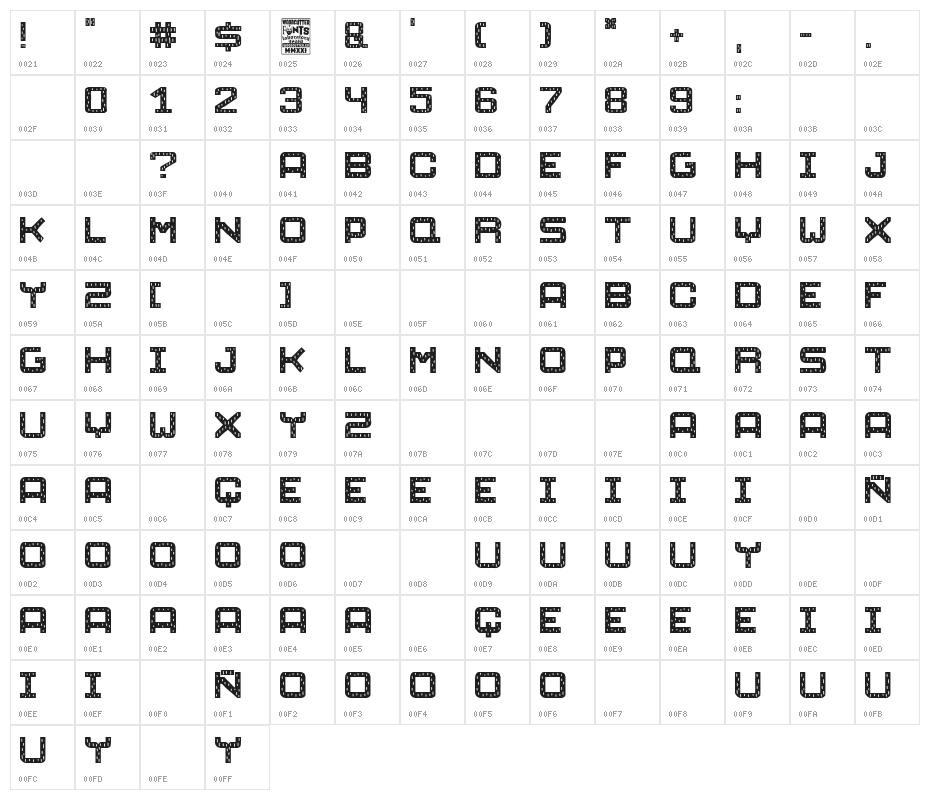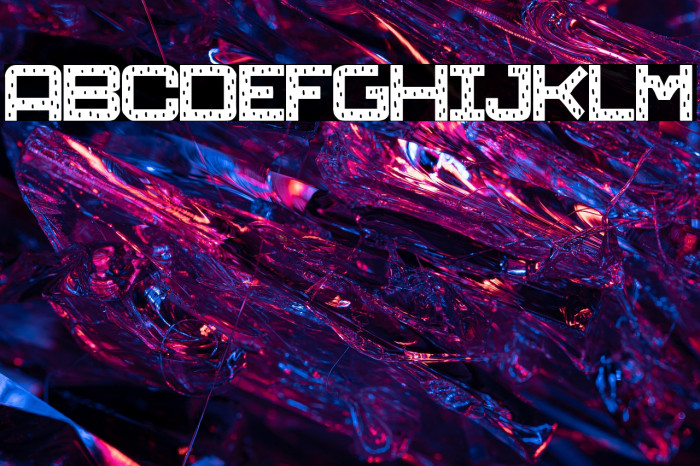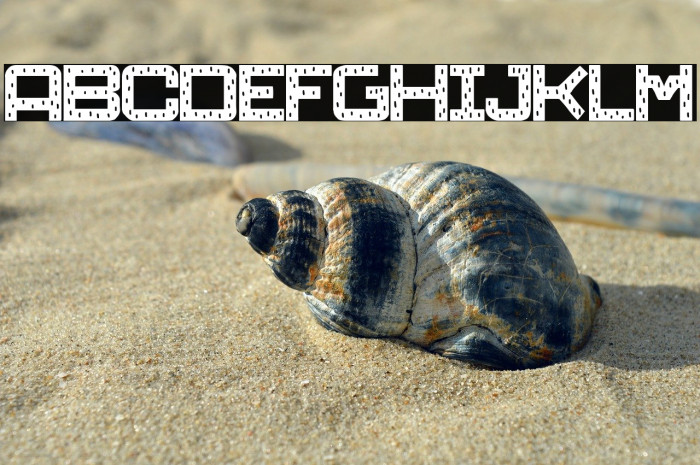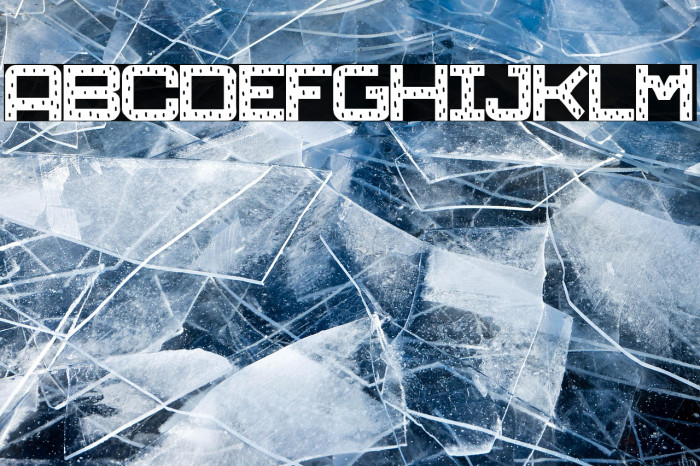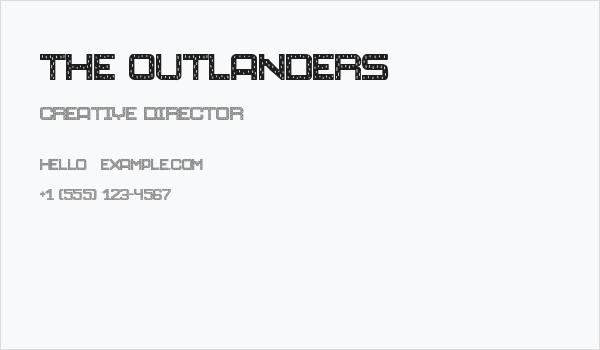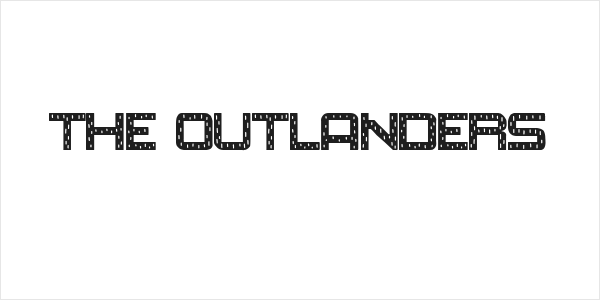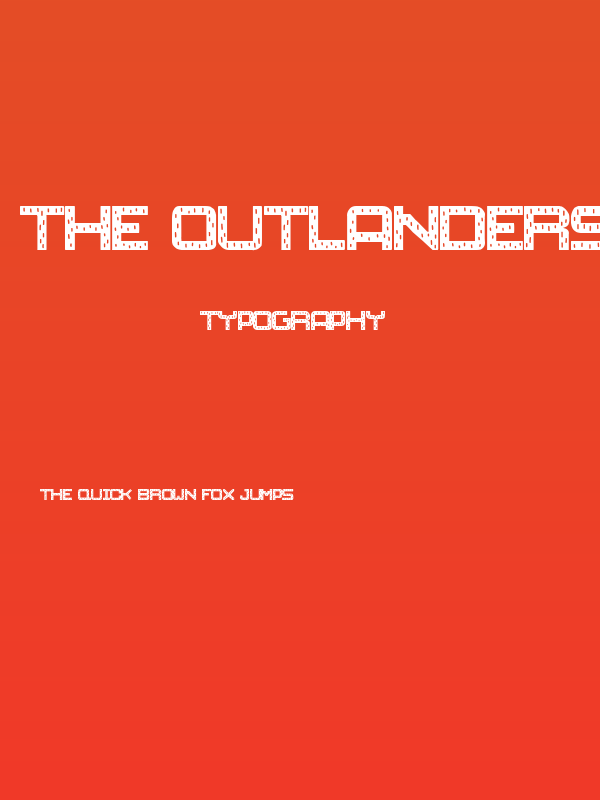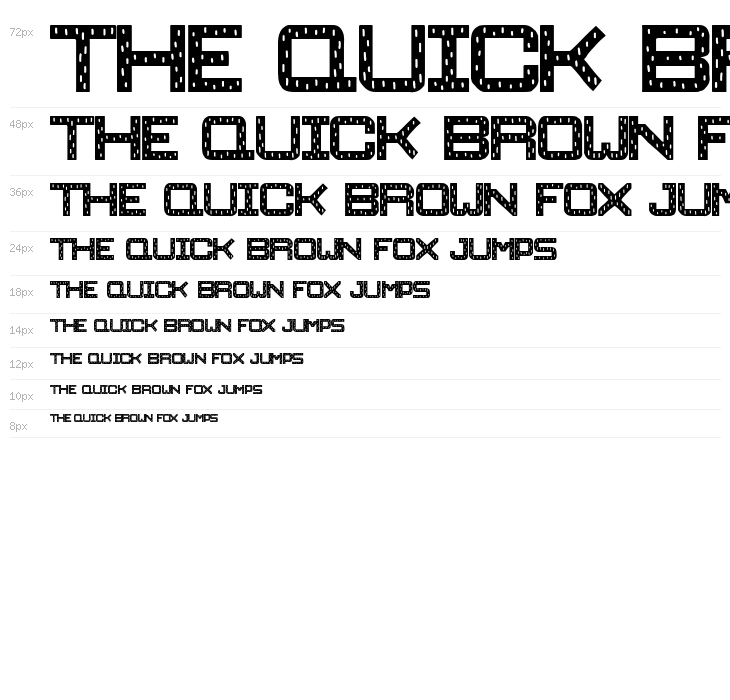
The Outlanders Font
The Outlanders Description
This font features a bold, decorative style with a unique pattern of dots and lines within each character, giving it a mechanical and industrial feel. The uppercase letters are uniform in height and width, while the lowercase letters maintain a consistent style with slightly smaller proportions. The numbers and special characters follow the same design principles, ensuring a cohesive look across all glyphs. The font's distinct appearance makes it ideal for projects that require a strong visual impact, such as posters, signage, or branding materials. Its geometric structure and bold presence make it stand out, while the internal detailing adds an element of intricacy and interest.
| Proposed Projects | Ideal for posters, signage, branding, and any project needing a strong visual impact. |